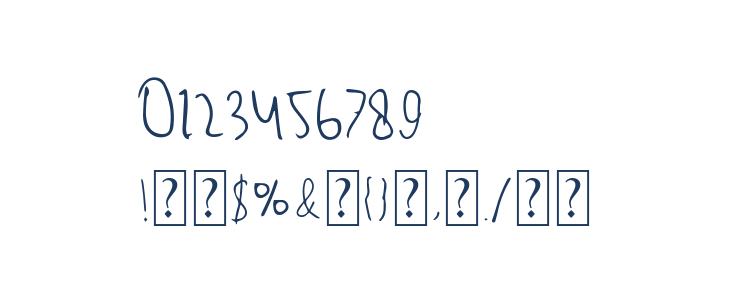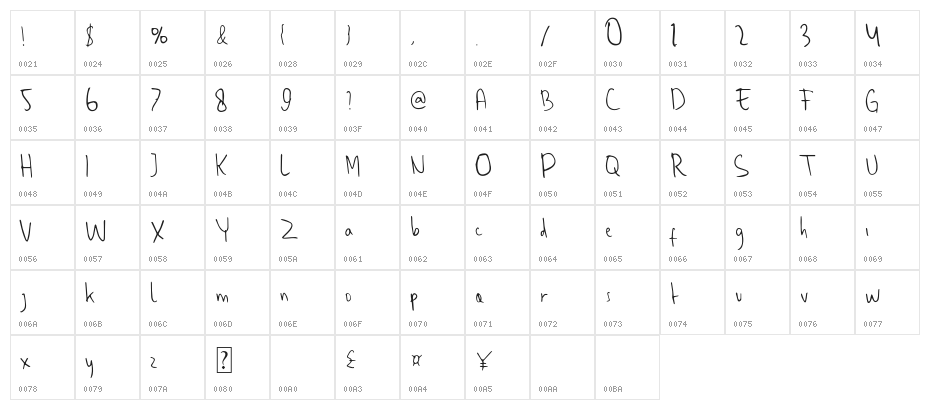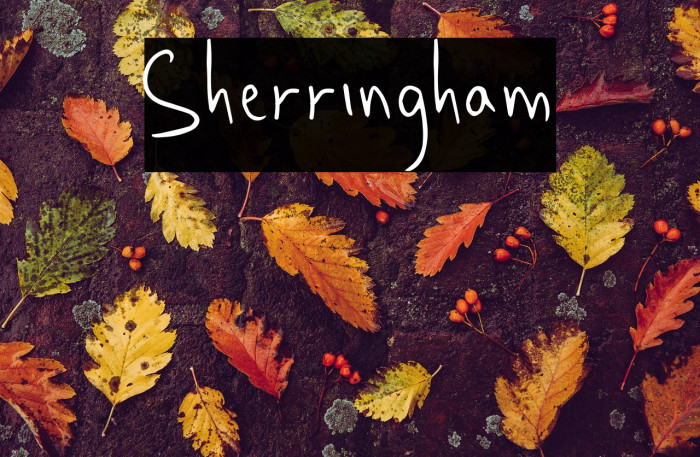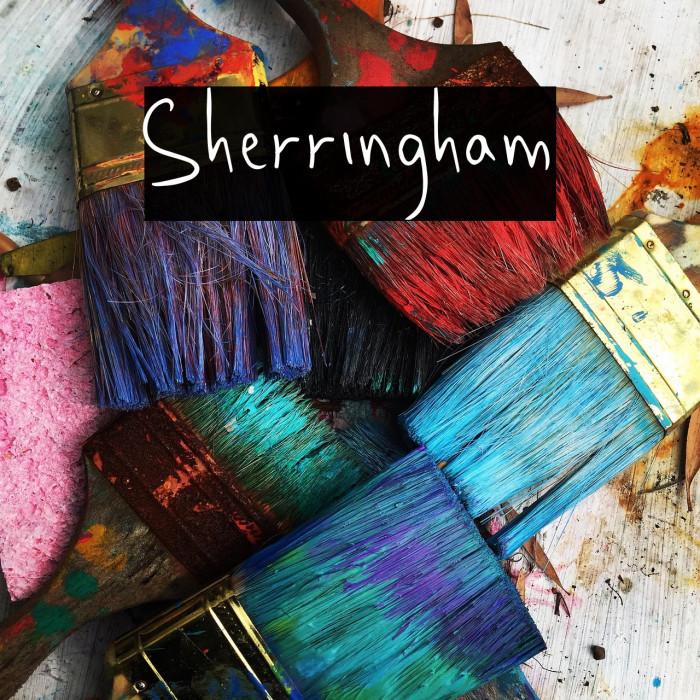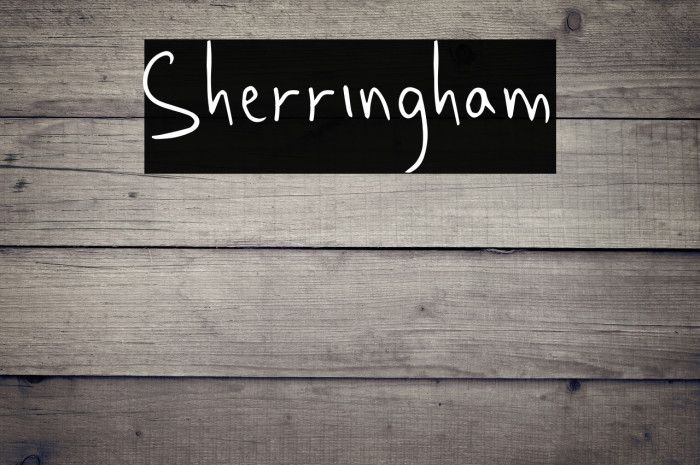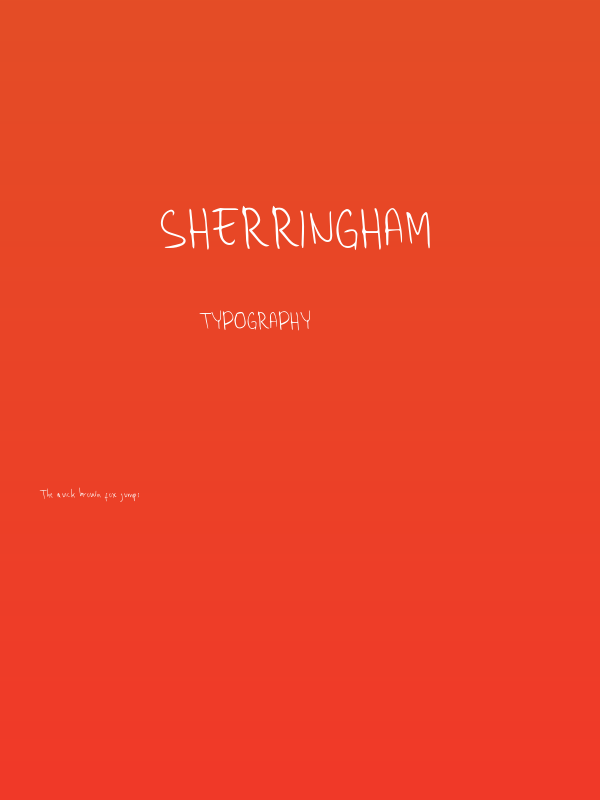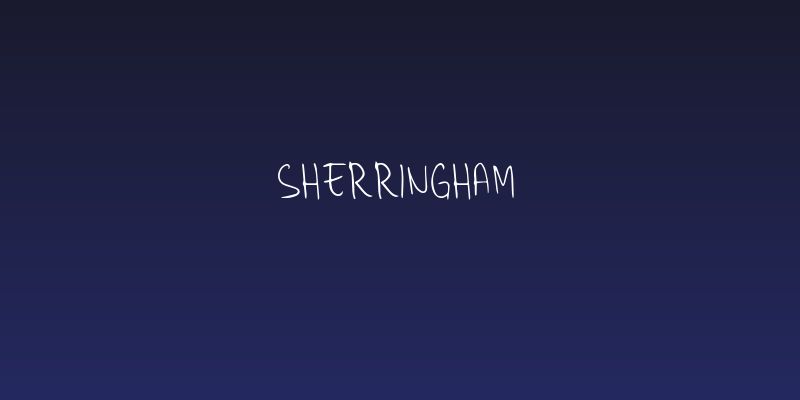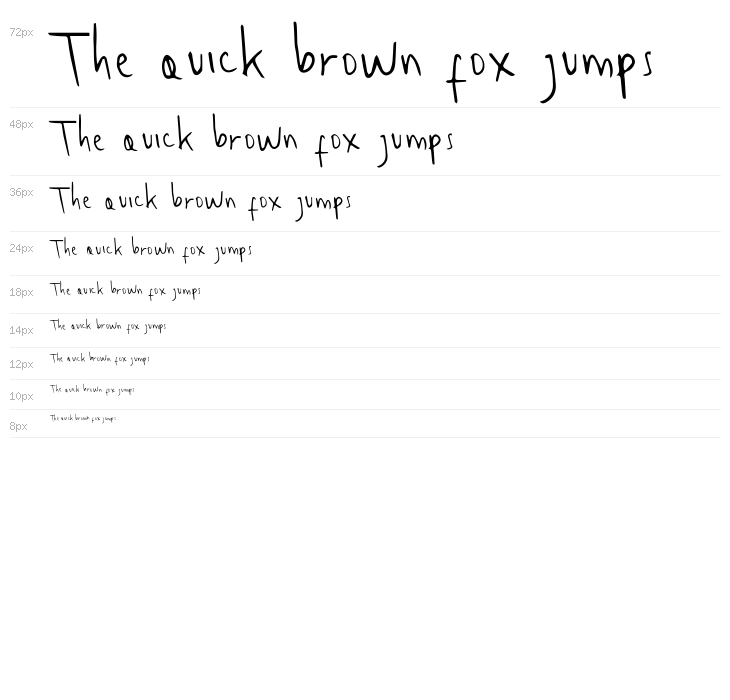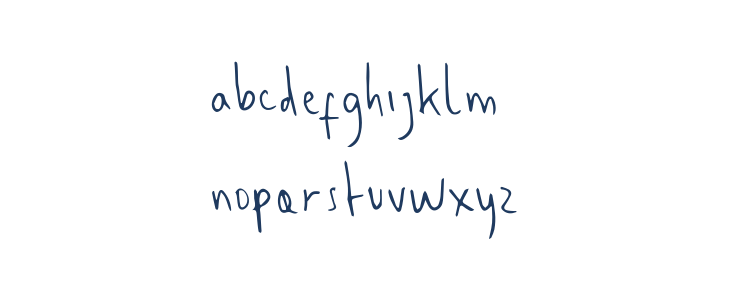
Sherringham Font
Sherringham Description
This font features a playful and informal handwritten style, characterized by its uneven strokes and casual appearance. The letters are slightly irregular, giving it a personal and approachable feel. The uppercase and lowercase letters maintain a consistent style, with a slight slant that adds to its dynamic nature. The numerals and special characters follow the same informal design, making it suitable for creative projects. The overall look is friendly and relaxed, perfect for conveying a sense of warmth and authenticity.
| Proposed Projects | Ideal for greeting cards, personal invitations, children's books, and creative branding projects. |